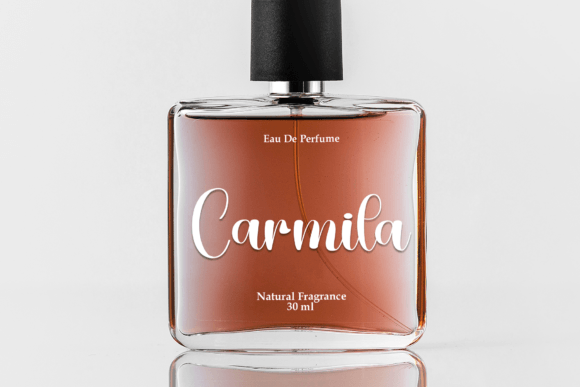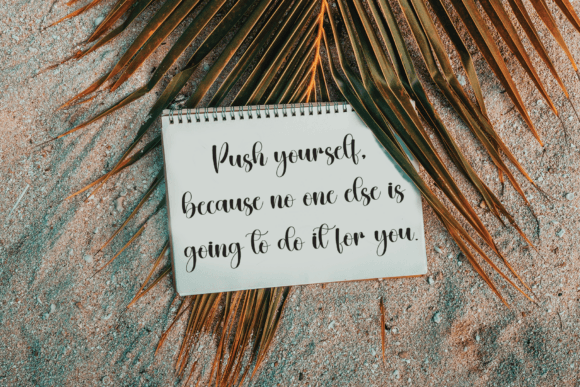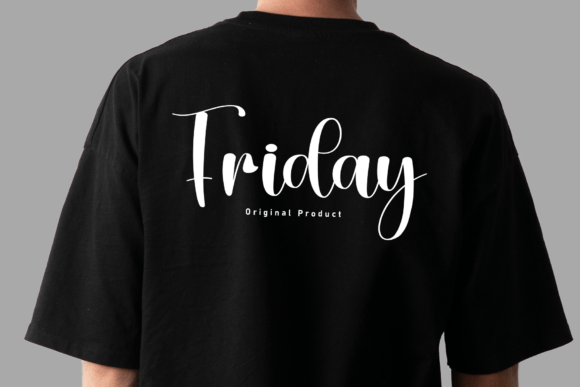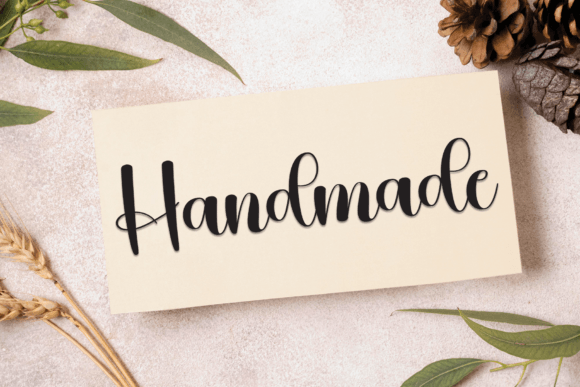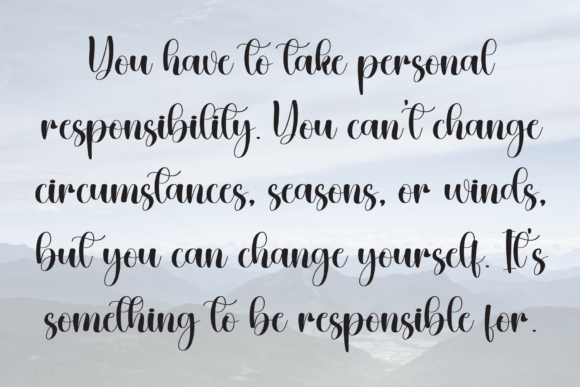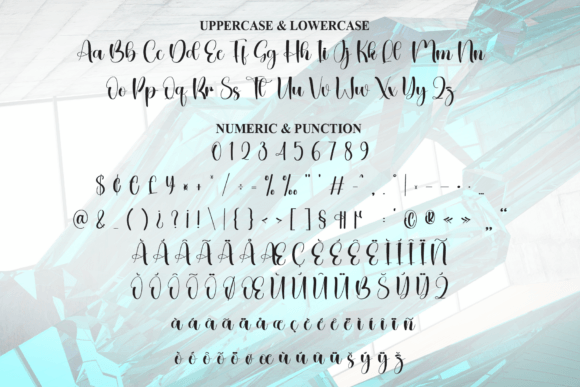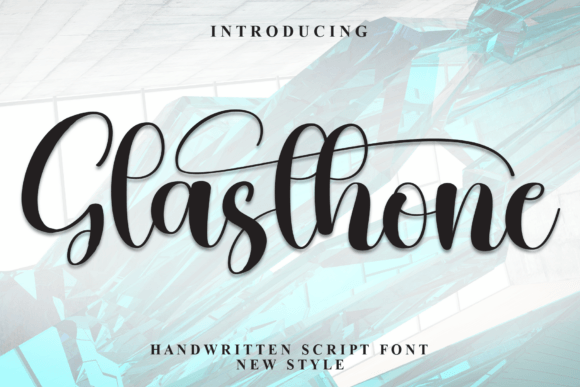
Glasthone Font: Elevate Your Designs with Elegance and Modern Flair
In the world of typography, fonts play a crucial role in conveying the tone and personality of a brand or design. For those seeking a typeface that exudes elegance, sophistication, and a touch of modernity, Glasthone Font is an exceptional choice. This stylish handwritten script font has been gaining popularity among designers and crafters for its unique ability to add a personal, refined touch to various projects.
The Characteristics of Glasthone Font
Glasthone Font is distinguished by its flowing strokes and organic curves, which bring a sense of warmth and fluidity to any design. Its elegant and refined appearance makes it an ideal choice for projects that require a touch of sophistication. The font’s modern flair ensures that it remains fresh and contemporary, appealing to a wide range of design preferences.
What Makes Glasthone Font Stand Out?
- Elegant and Refined: Glasthone’s sophisticated design makes it perfect for high-end branding, luxury invitations, and premium social media content.
- Handwritten with a Personal Touch: The font’s handwritten nature adds a personal and humanizing element to designs, making them more relatable and engaging.
- Versatile: Glasthone Font is suitable for a variety of applications, including logos, invitations, social media posts, and more.
- Modern Flair: The font’s contemporary feel ensures that designs look modern and up-to-date.
Whether you’re a professional designer or a crafter looking to add a personal touch to your projects, Glasthone Font is an excellent choice. Its unique blend of elegance and modernity makes it versatile enough to be used in a wide range of applications. Designers can use Glasthone to create stunning branding materials, while crafters can use it to add a touch of sophistication to their handmade projects.
Applications of Glasthone Font
Glasthone Font’s versatility makes it suitable for various design projects, including:
- Branding: Create a lasting impression with elegant and sophisticated branding materials, such as logos, business cards, and letterheads.
- Invitations: Add a touch of luxury and refinement to your invitations, whether it’s for a wedding, birthday party, or corporate event.
- Social Media: Elevate your social media content with Glasthone’s modern and elegant design, making your posts stand out from the crowd.
Tips for Using Glasthone Font Effectively
To get the most out of Glasthone Font, consider the following tips:
- Pair with Complementary Fonts: Combine Glasthone with clean and simple fonts to create a striking contrast and enhance visual appeal.
- Experiment with Colors: Try different color schemes to find the perfect match for your design and make Glasthone Font truly shine.
- Pay Attention to Spacing: Ensure that your text is easy to read by adjusting the spacing between letters and lines.
Glasthone Font is a stylish and elegant handwritten script font that can elevate any design project. Its unique blend of sophistication and modern flair makes it an excellent choice for designers and crafters looking to add a personal touch to their work. With its versatility and wide range of applications, Glasthone Font is sure to become a staple in your typography collection.